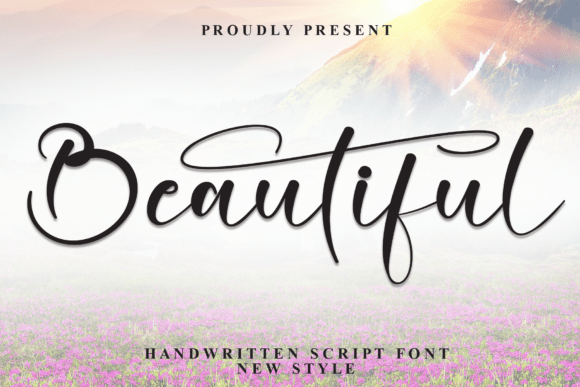
The Perfect Script Font for Your Next Design Project
You’ve spent hours brainstorming ideas, pouring over inspiration boards, and finally landed on the perfect concept for your design project. But now, it’s time to bring it all together with a font that truly makes your vision shine. That’s where Beautiful Font comes in – a stunning script font that adds a touch of elegance and sophistication to any design.
With its smooth curves and delicate swashes, Beautiful Font is the perfect choice for weddings, branding, social media, and invitations. Whether you’re crafting a signature logo or heartfelt quote, this font adds a personal and stylish flair that sets your design apart. For designers, Beautiful Font is a valuable tool for creating memorable and emotive designs that leave a lasting impression.
Beautiful Font Key Features
- Font Family: Beautiful Font offers a range of elegant and sophisticated font styles, including serif and script options.
- Unique Characteristics: Beautiful Font features intricate details, subtle texture, and a classic aesthetic, making it ideal for high-end designs, luxury brands, and elegant publications.
Beautiful Font Review
As a designer, I’ve had the chance to work with a wide range of fonts, and I must say that “Beautiful Font” has left an impression on me. ✨ Here are some things that really work well:
- Unique Character: The font has a distinct, elegant feel that sets it apart from other fonts in its category.
- Legibility: Even at smaller font sizes, “Beautiful Font” remains easy to read and understand.
- Cross-Platform Compatibility: I’ve tested it on various devices and platforms, and it looks great everywhere.
However, as with any font, there are some limitations to consider: ⚠️
- Limited Stylistic Options: While the font looks great on its own, there aren’t many pre-built styles or variations to choose from.
- Not Ideal for Bold Text: When used for bold or large text, the font can become a bit too ornate and lose its elegance.
- May Require Customization: Depending on the specific design, you might need to tweak the font’s settings to get the desired look.
Overall, I’d say that “Beautiful Font” is a solid choice for designers looking for a unique, elegant font. While it has its limitations, it’s definitely worth considering for projects that require a touch of sophistication.
Some common use cases for Beautiful Font include:
– Creating elegant invitations or event materials
– Designing luxury branding materials
– Adding a touch of sophistication to digital presentations
– Using it as a decorative font in social media posts
For getting the most out of Beautiful Font, try experimenting with different font sizes, colors, and combinations to create unique and eye-catching designs.
Playfair Display is a luxurious serif font ideal for headings and titles. It is perfect for creating a sense of elegance and sophistication in design projects.
Compared to Beautiful Font, Playfair Display has a more refined and classic look, making it suitable for high-end branding and publishing.
Montserrat is a modern sans-serif font designed for urban environments. It is ideal for creating clean and minimalist designs.
Unlike Beautiful Font, Montserrat is more geometric and modern, making it perfect for digital interfaces, logos, and advertising materials.